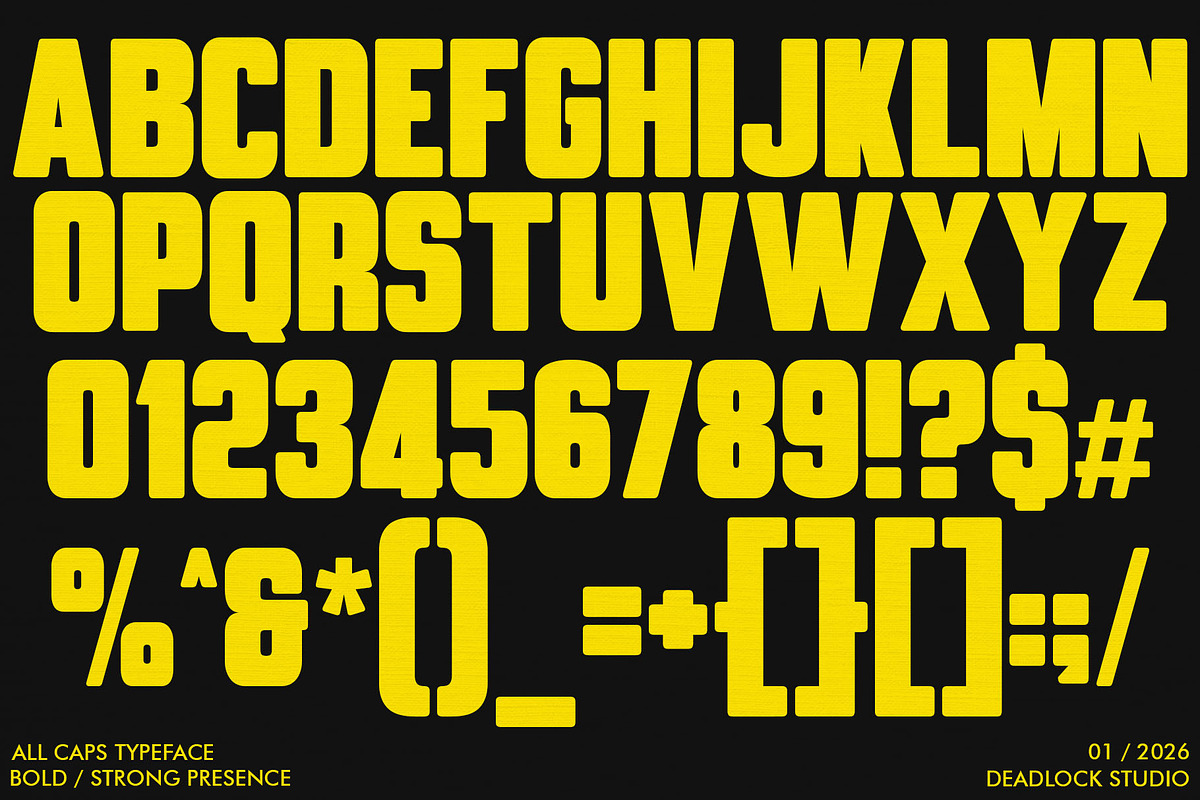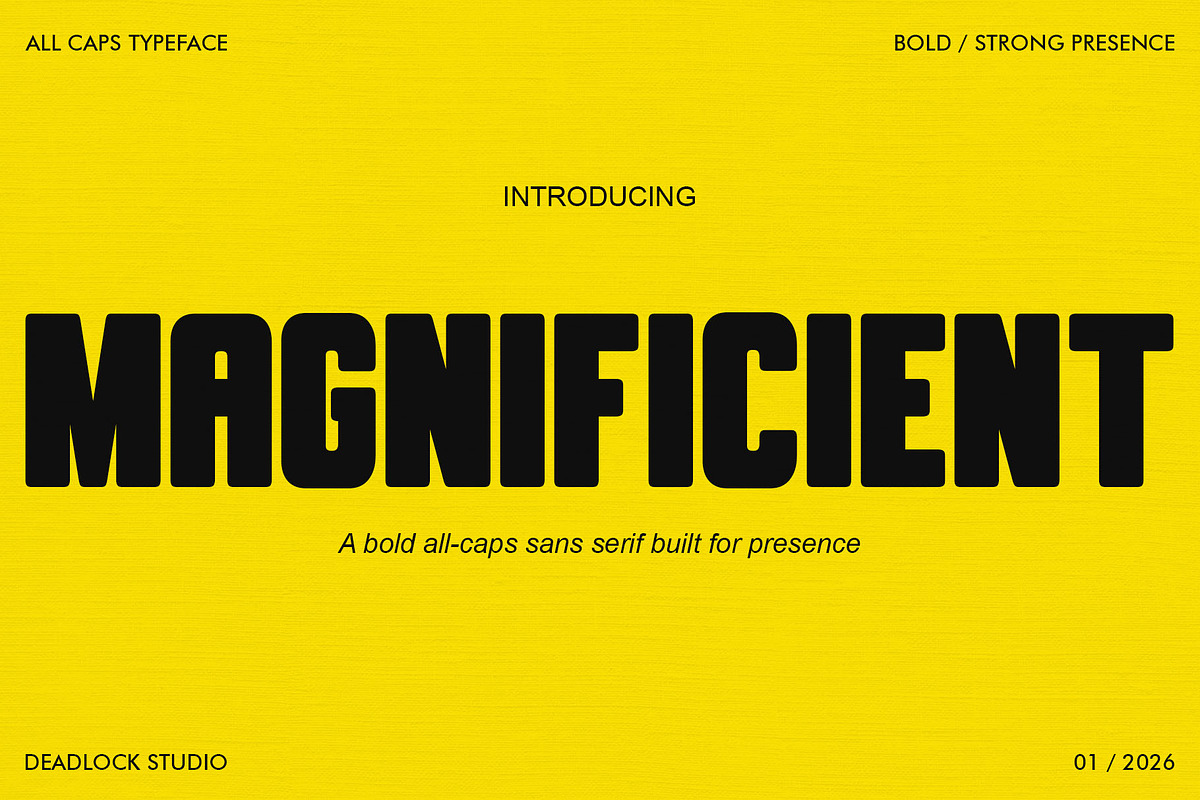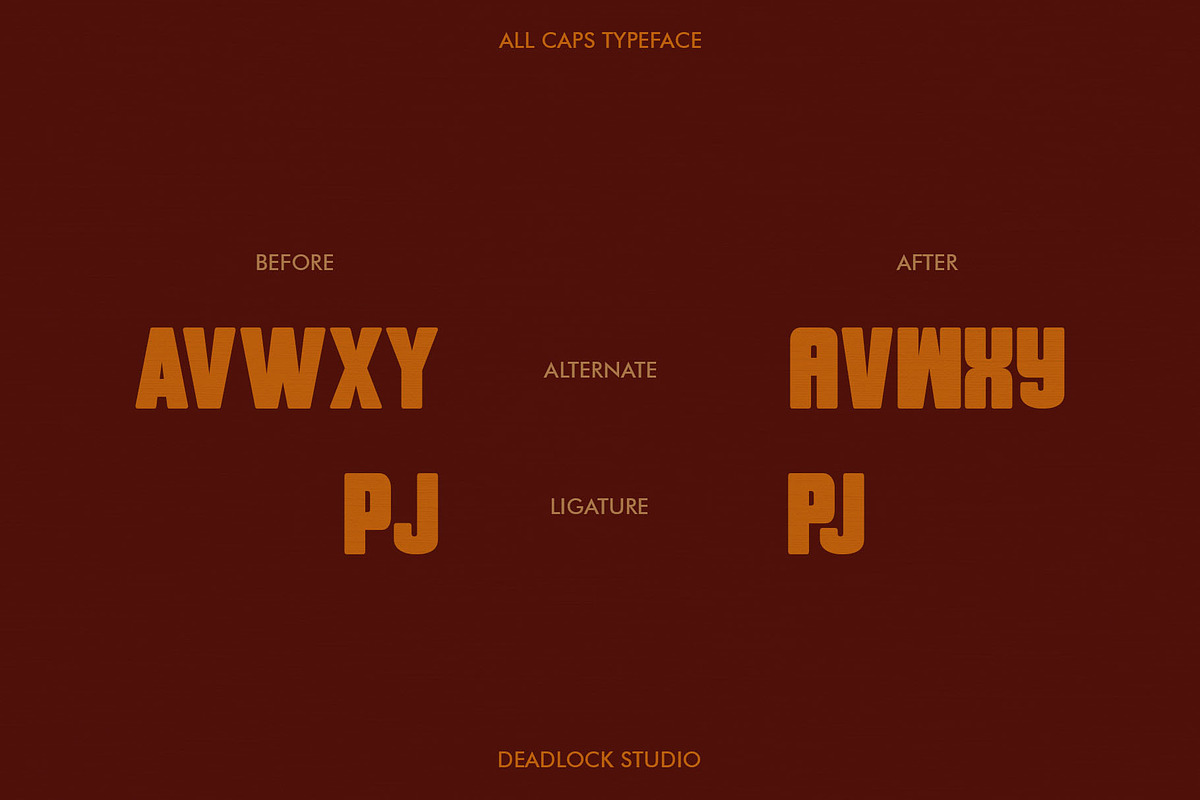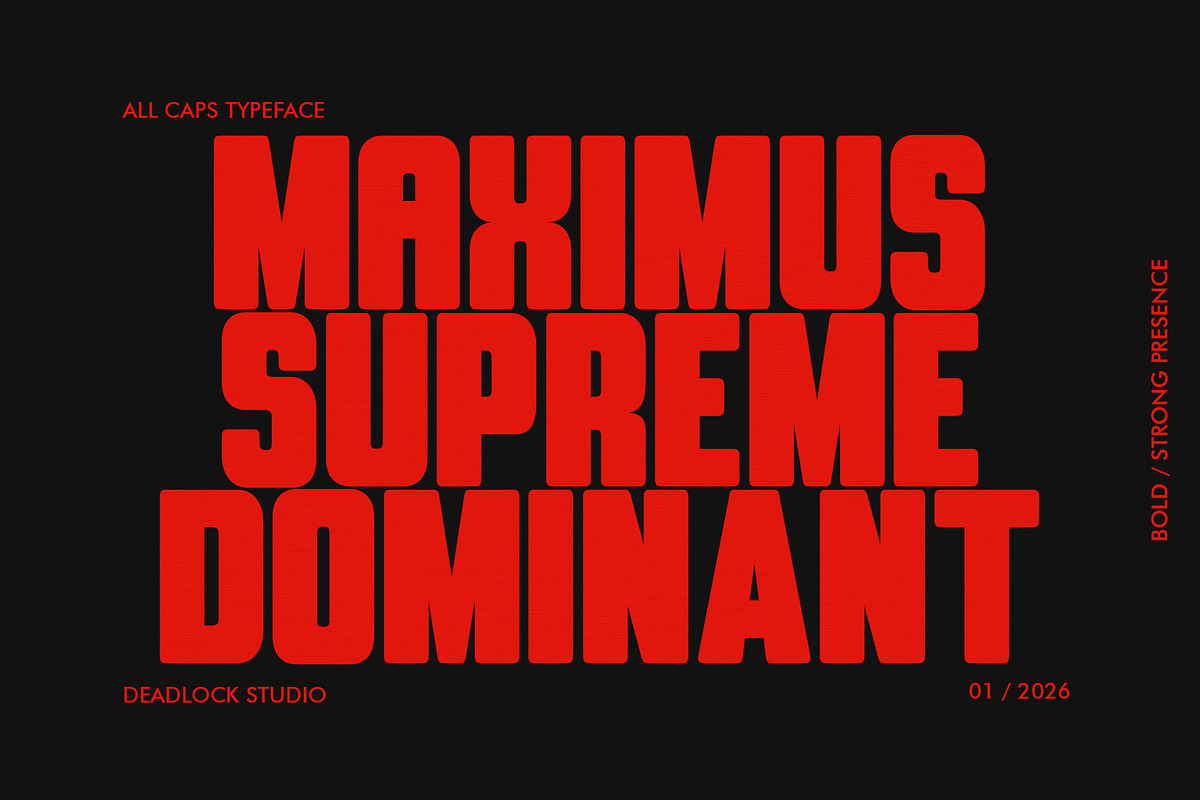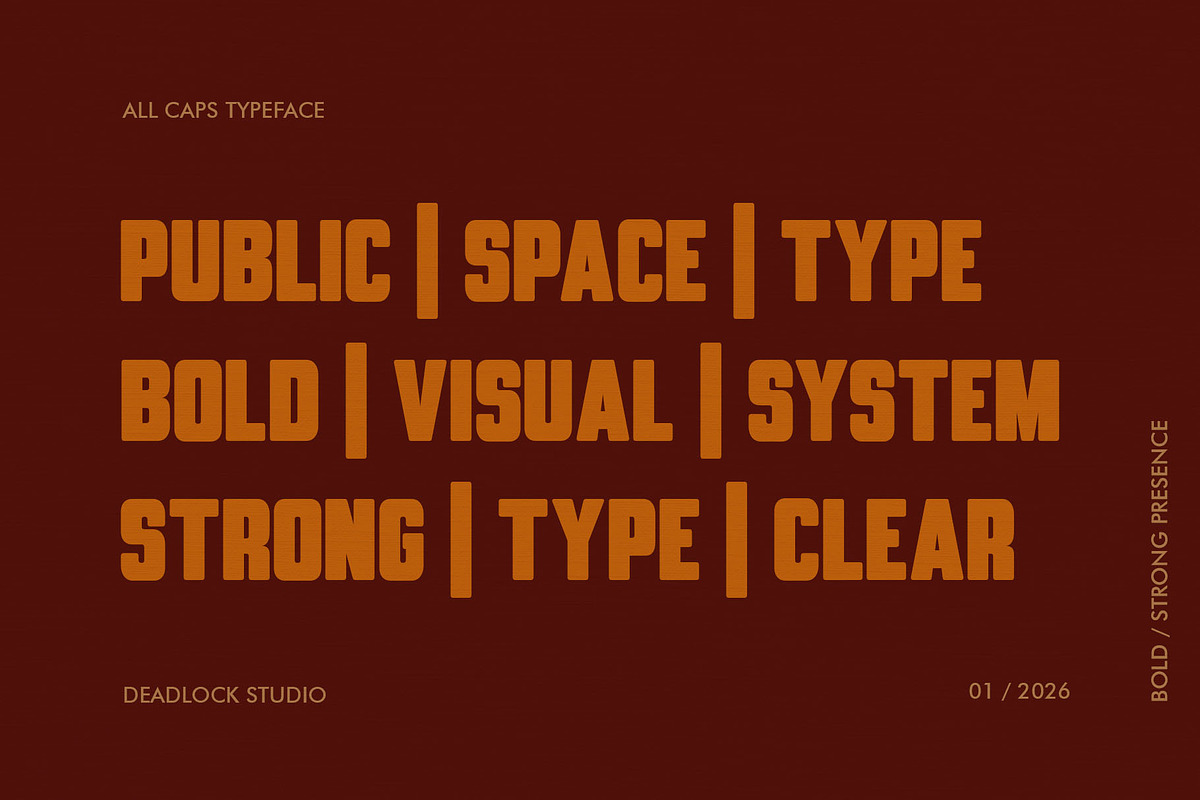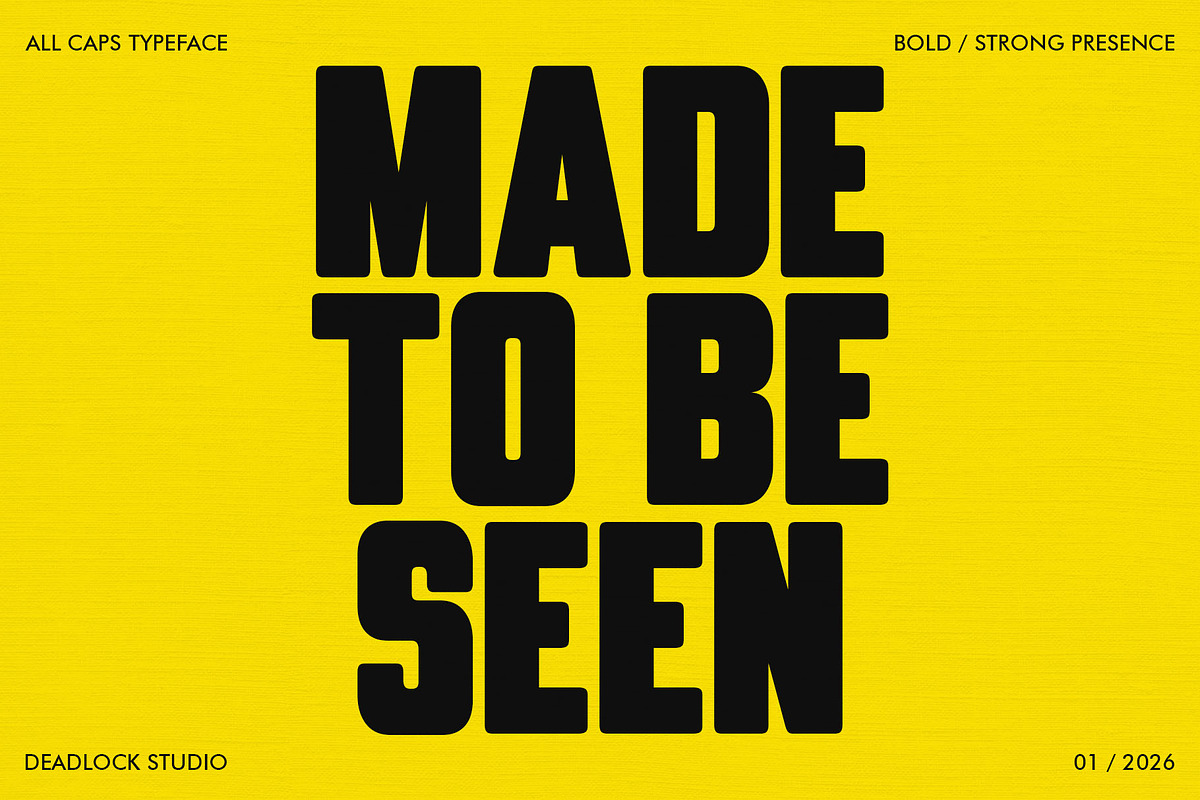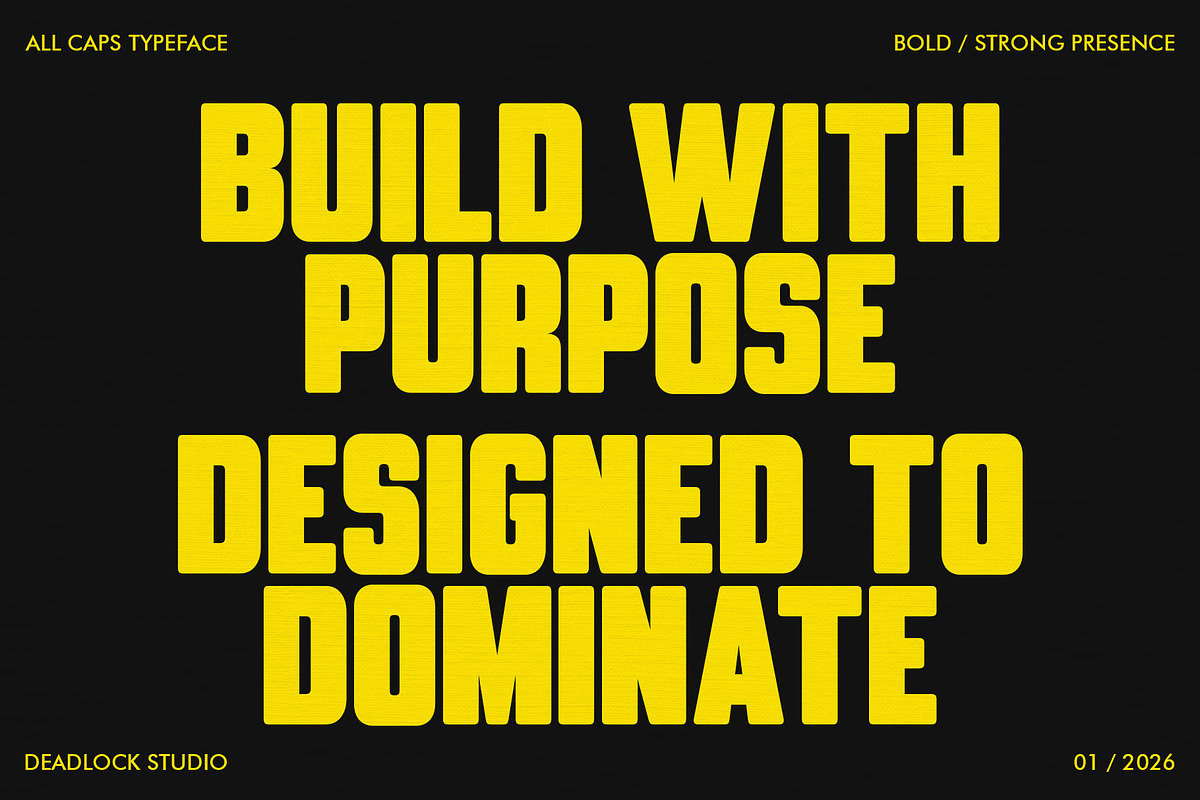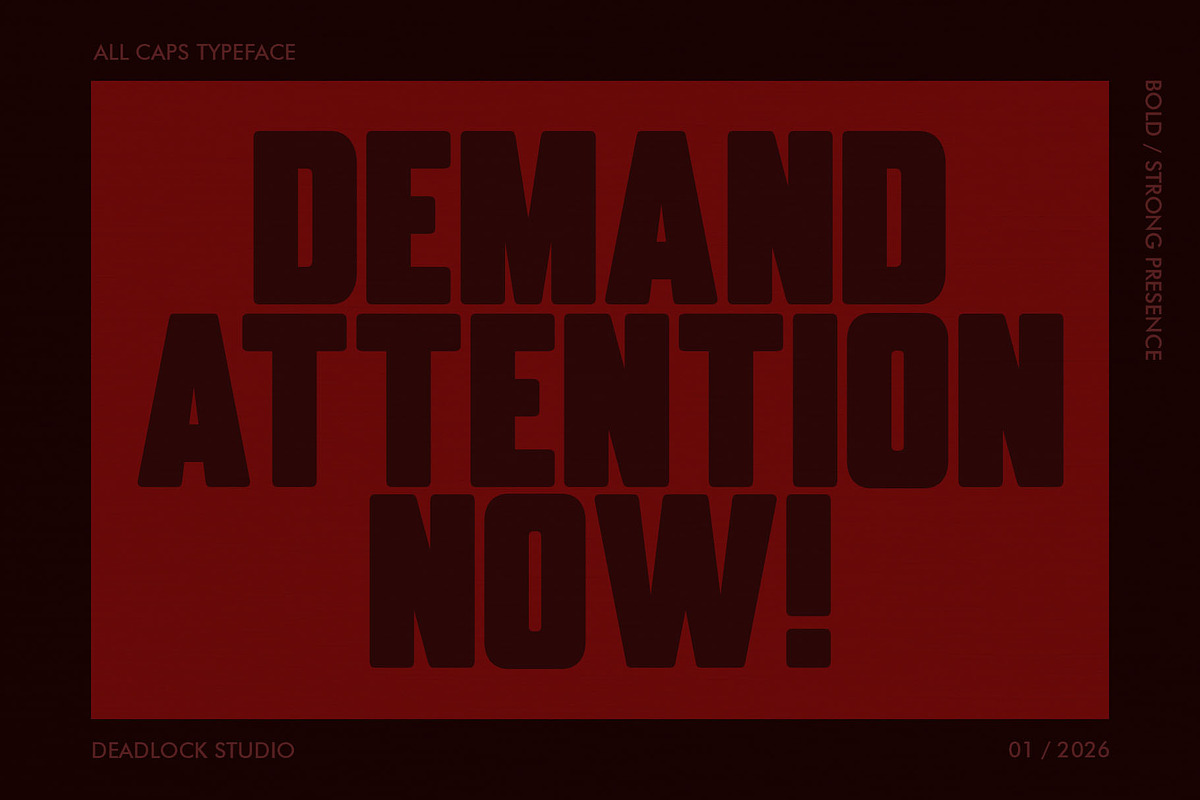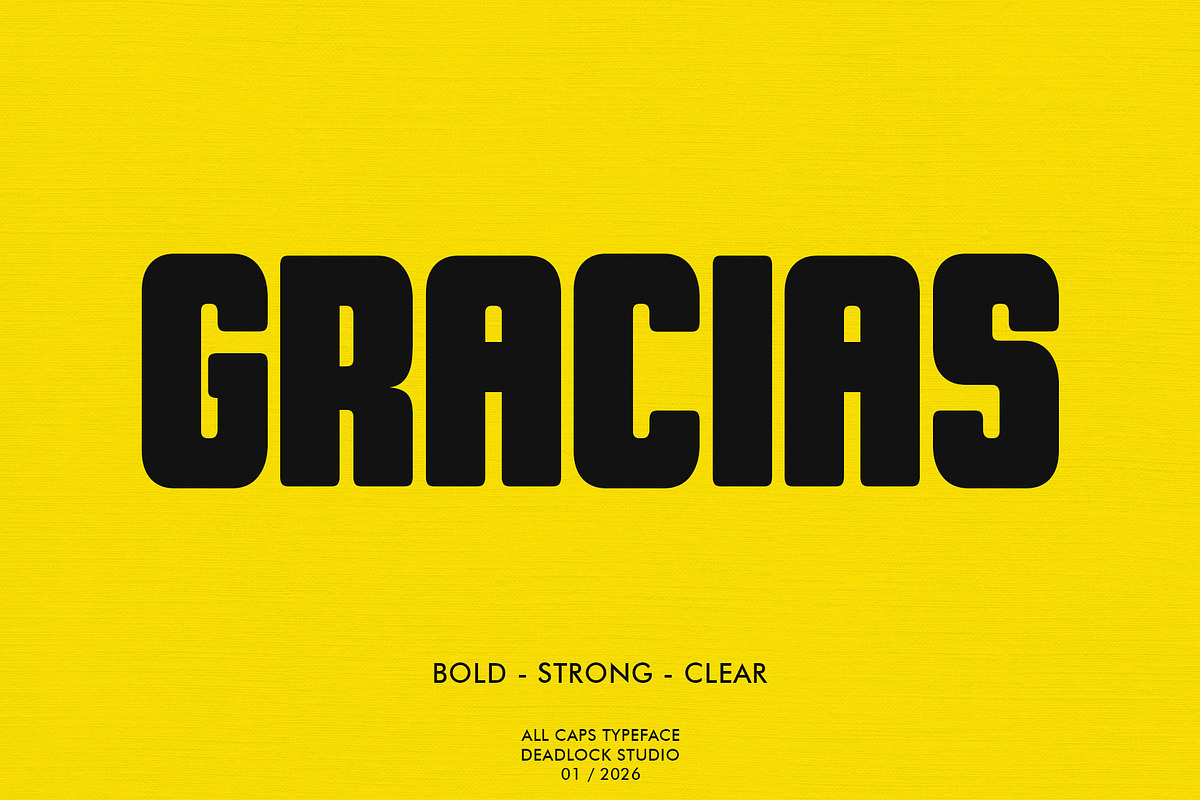
MAGNIFICIENT! HEADLINE FONT!
MAGNIFICIENT is a bold all-caps display sans serif typeface designed to deliver maximum visual impact and strong brand presence. Built with confident geometry, solid proportions, and clean letterforms, this font is made to perform at large sizes where clarity and authority are essential. Every character is carefully crafted to stand out in signage, headlines, and brand-driven designs without losing legibility or balance.
MAGNIFICIENT works perfectly for logos, posters, storefront signage, packaging, editorial headlines, and modern visual identity systems. Its bold structure makes it ideal for projects that need to be seen, remembered, and recognized instantly. The typeface is provided in TTF, OTF, WOFF, and WOFF2 formats, making it suitable for both print and digital use, including web and UI applications. Strong, modern, and unapologetically bold, MAGNIFICIENT is a display typeface built to own the space and elevate your message with confidence.